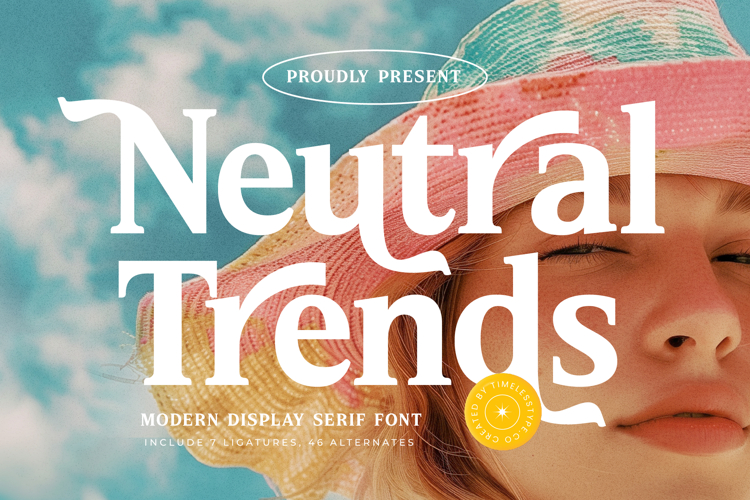
Neutral Trends - Modern Display Serif Font
The Neutral Trends Typeface is a modern display serif font with an elegant, clean, and contemporary style. Featuring 7 ligatures and 46 stylistic alternates, this font provides designers with the flexibility to create typography that is stylish, versatile, and full of modern character. Its bold letterforms with subtle decorative details bring a sophisticated yet approachable feel, making it the perfect choice for a wide range of visual design needs.
This typeface is highly effective in editorial design, such as fashion magazines, lifestyle article headlines, and art book covers. The available alternates and ligatures allow for expressive typographic variations without compromising readability.
In branding and packaging, Neutral Trends is an excellent choice for cosmetics, premium fashion, artisan beverages, and modern lifestyle brands. Its elegant and modern aesthetic creates a timeless and memorable visual identity.
For entertainment and promotional design, this font works beautifully on movie posters, advertising campaigns, event branding, and music album covers. Its modern serif style enhances visual storytelling with an elegant and dynamic impression.
In the realm of digital design, Neutral Trends performs at its best across social media content, website branding, digital advertising, and motion graphics. With multilingual support, it adapts seamlessly to international projects that demand stylistic consistency.
In short, Neutral Trends Typeface is a modern display serif font designed to embody elegance, versatility, and contemporary style. Perfect for editorial, branding, packaging, entertainment, advertising, and digital campaigns, this font elevates typography into a timeless, stylish, and powerful design element.